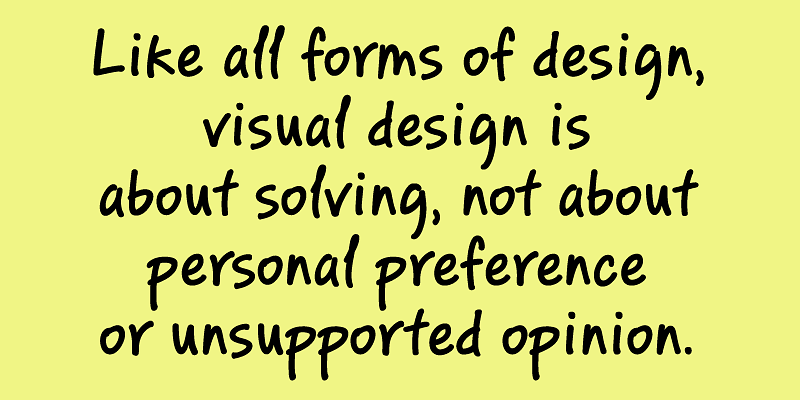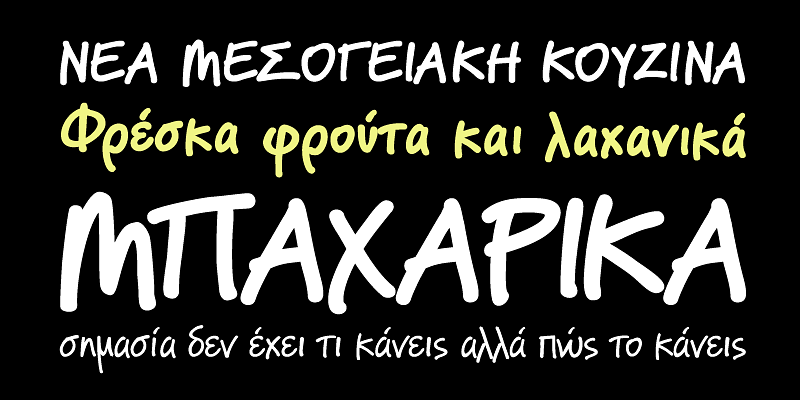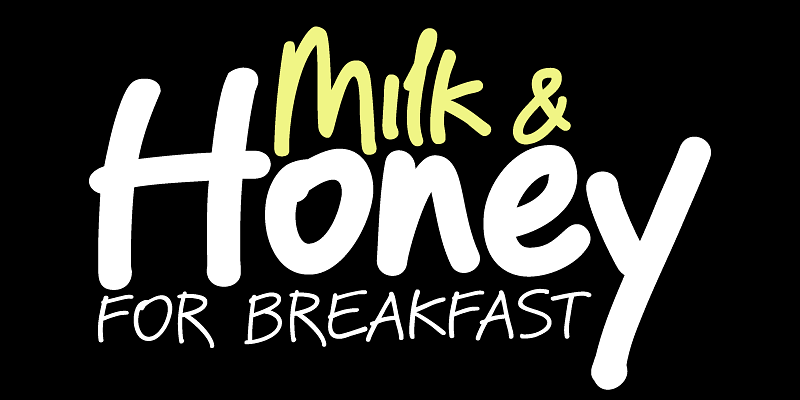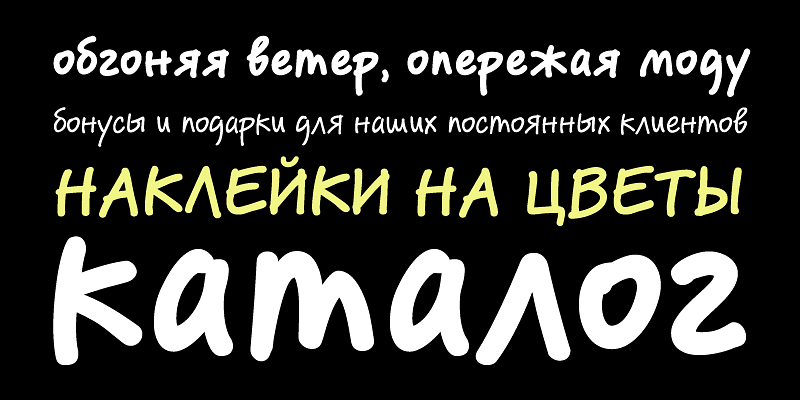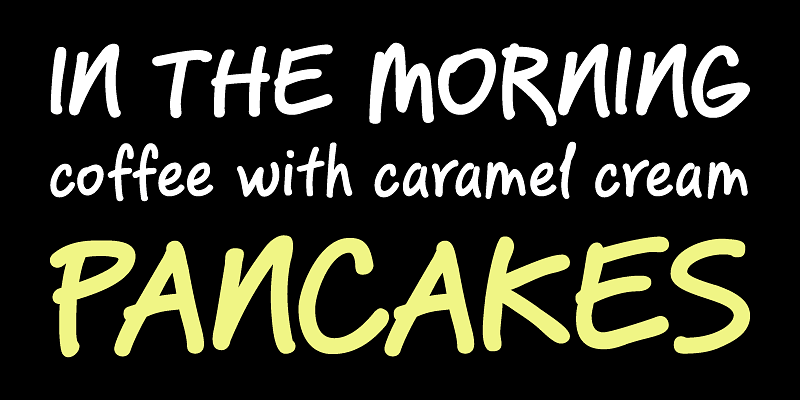
Use PF Reminder to add a homey and personal touch to your notes and messages. Whether it is a note to your loved ones or a colleague at the office, this is the typeface to use. But don’t take our word for it. The applications of this typeface are endless. Since its 1st release back in 2003, we have seen it being used for anything from banking to automobiles. And now, with this new version you can communicate with a big part of this world in a way you always wanted. PF Reminder comes loaded with 555 glyphs which support all European languages including Greek and Cyrillic.